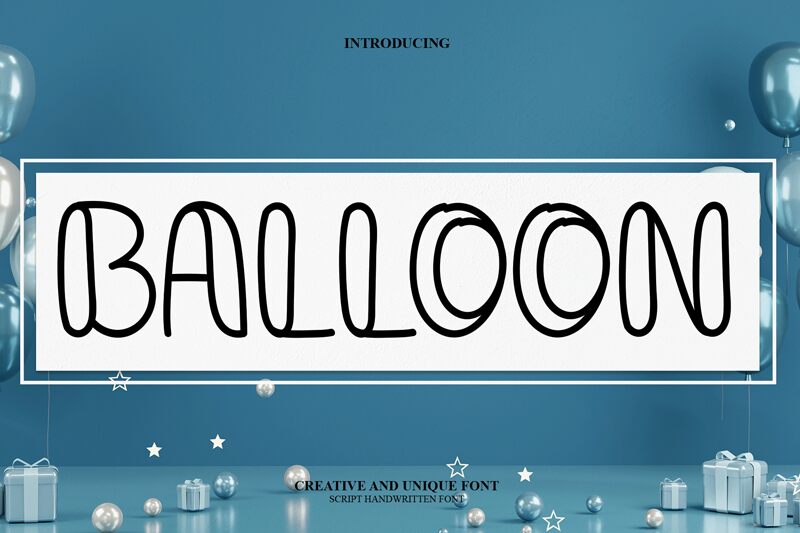
Balloon
Balloon, the playful display font designed by Belina Studio, adds a fun and whimsical touch to any project. Its outlined cartoon style and bold weight make it perfect for children's books, party invitations, and event posters. This font is sure to grab attention with its unique look and feel. Balloon is also suitable for branding projects that want to incorporate a youthful and energetic vibe. Let your creativity soar with Balloon – the perfect choice for any project that needs a touch of lightheartedness.
the latest style letters are perfect for wall displays, wedding invitations, social media post logos, advertisements, product packaging, product designs, labels, photography, watermarks, invitations, stationery, and any project that requires taste handwriting.